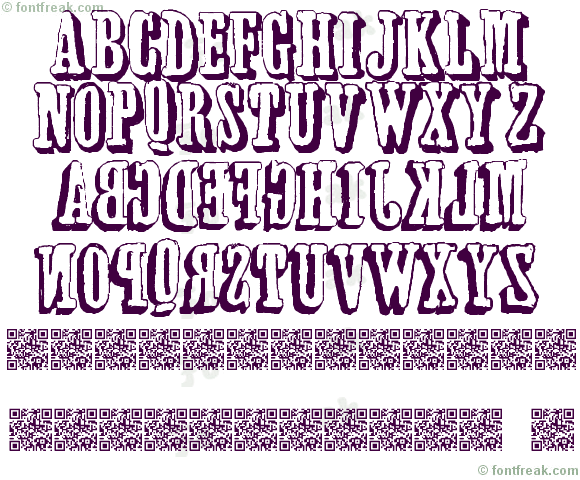
forwardsBACKWARDS
The forwardsBACKWARDS font by XEROGRAPHER FONTS is a distinctive display typeface that captures attention with its unique and playful design. This font features bold, exaggerated letterforms that exhibit a retro-inspired aesthetic, making it an excellent choice for various creative projects. The design showcases a moderate stroke weight with a slight contrast, giving it a sturdy yet whimsical appearance. The letters are closely spaced, enhancing their impact while maintaining legibility, and they incorporate decorative elements that further emphasize its dynamic character.
This font shines in specific use cases, such as eye-catching movie posters, vibrant restaurant menus, and fun event flyers. Its playful nature also makes it ideal for children’s book covers or any project that aims to convey a sense of joy and creativity. Graphic designers and content creators will find this font particularly appealing, as it allows for a wide range of expressive applications. Small business owners looking to add a touch of personality to their branding will also benefit from the boldness of the forwardsBACKWARDS font.
What sets the forwardsBACKWARDS font apart is its ability to combine a sense of nostalgia with modern design sensibilities. Its whimsical style can evoke feelings of joy and playfulness, making it an excellent choice for projects that seek to engage and entertain audiences. The font's unique characteristics make it versatile enough to be used in a variety of contexts, ensuring that it stands out in any design. Don't miss out on the opportunity to enhance your creative projects with this distinctive typeface; explore the forwardsBACKWARDS font free download today and bring a touch of fun to your designs.